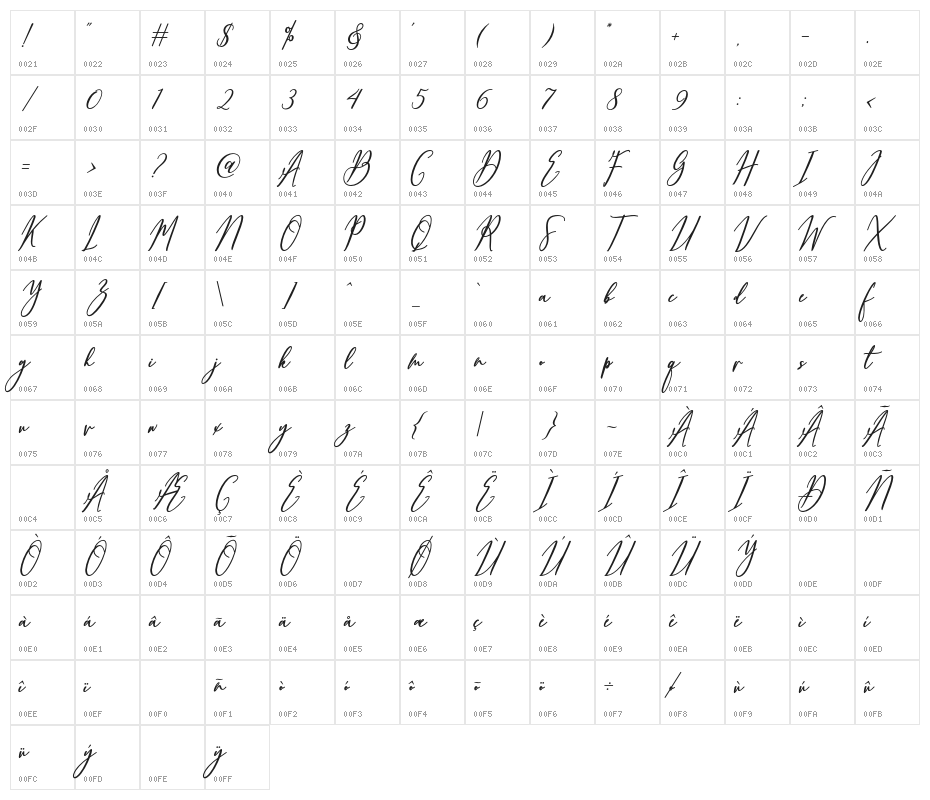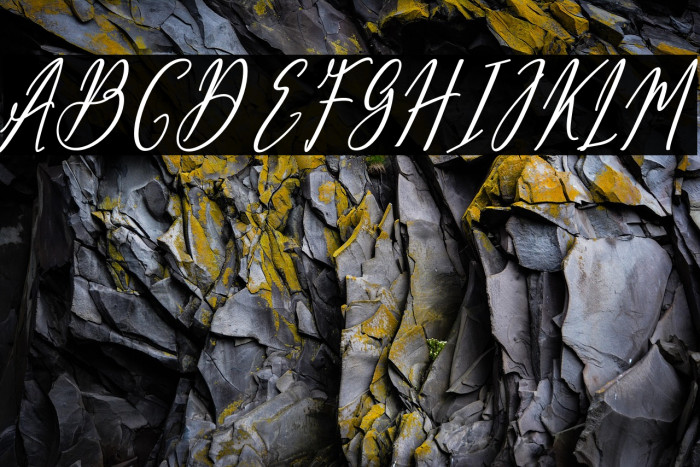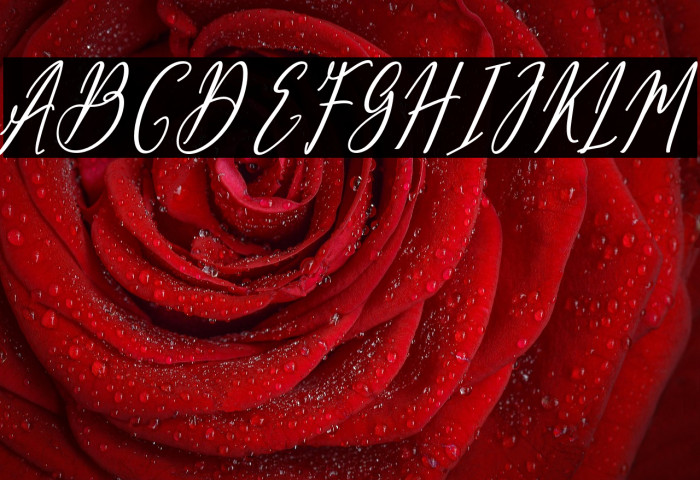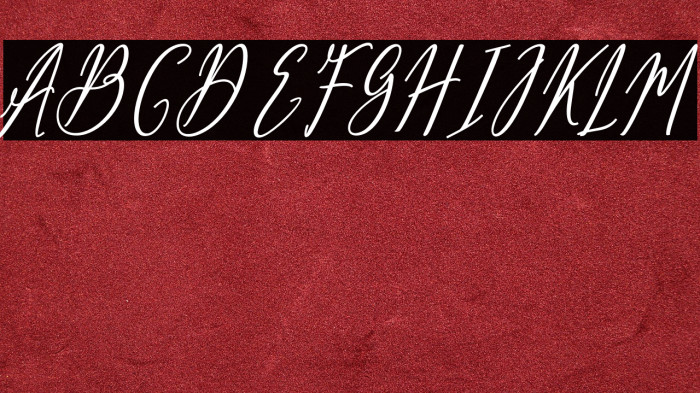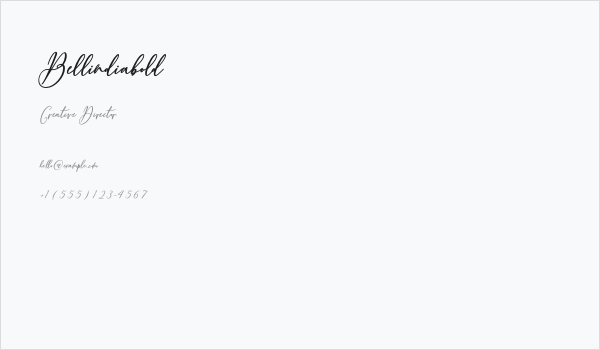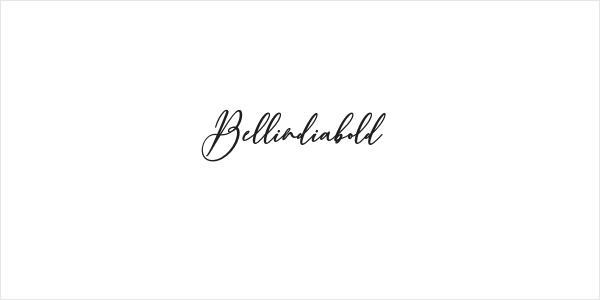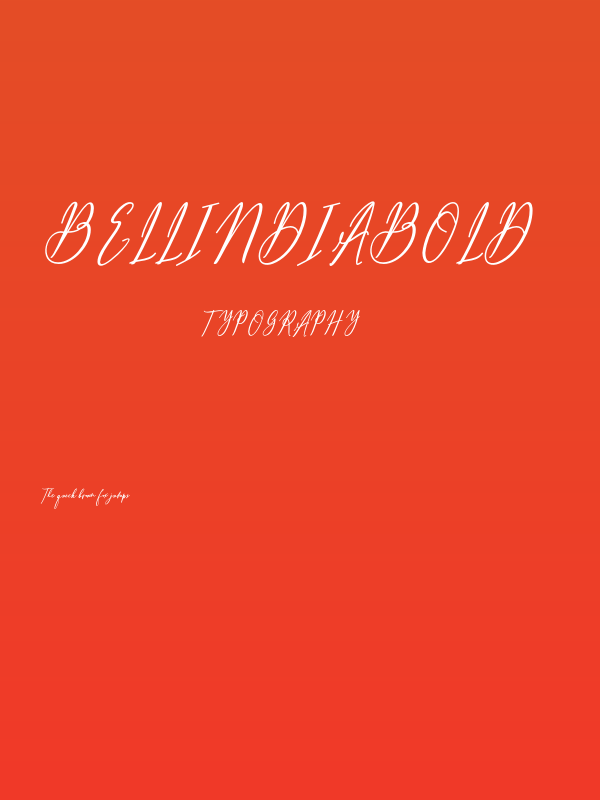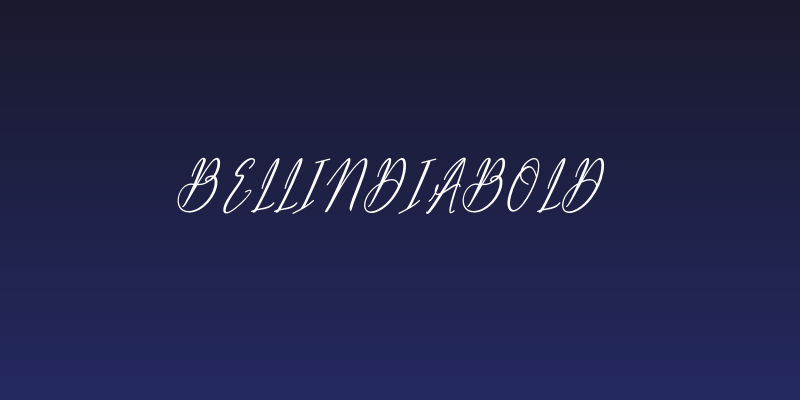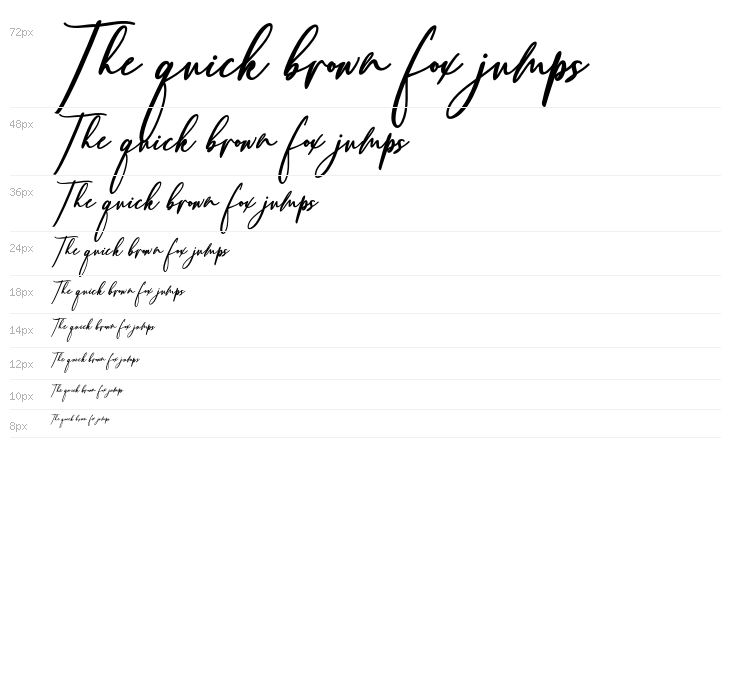
Bellindiabold Font
Bellindiabold Description
This elegant script font features a flowing, cursive style with a modern twist. The uppercase letters are tall and slightly slanted, giving a sense of movement and grace. The lowercase letters are more compact, with intricate loops and connections that enhance the font's fluidity. The numerals maintain the same cursive style, ensuring consistency across all characters. Special characters are thoughtfully designed to match the overall aesthetic, making this font versatile for various applications. The strokes are moderately thick, providing a balanced contrast that enhances readability while maintaining a decorative appeal.